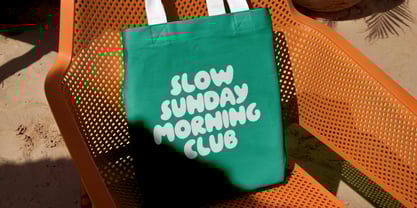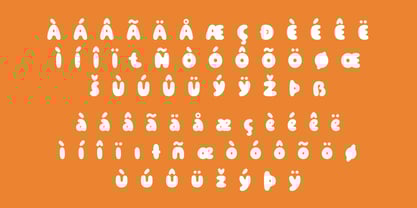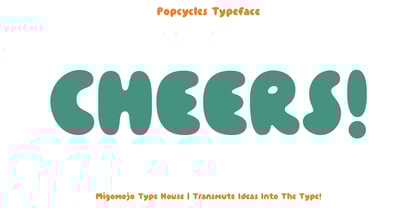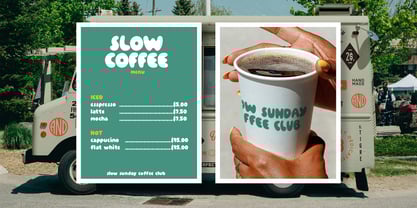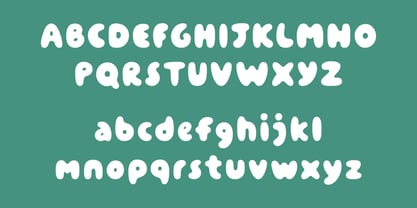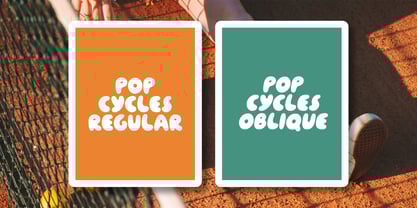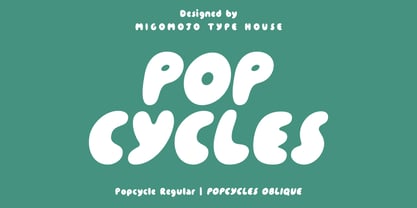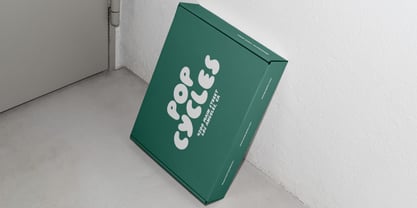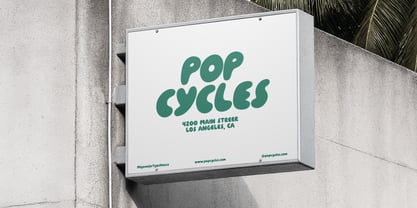
Popcycles
by Migomojo Type House
The Popcycles Font Family was designed by Komara Sani and published by Migomojo Type House. Popcycles contains 2 styles and family package options. More about this family
Popcycles is a chunky, groovy display font that brings instant 90s typography fun to your projects. With its youthful, playful, and organic letterforms, it adds a bold and nostalgic touch to your designs. Available in two styles—regular and oblique—Popcycles features over 400 glyphs with multilingual support, making it ideal for a variety of applications such as logo design, food branding, social media graphics, retro apparel, and brand collateral. Elevate your creative work with this vibrant font that captures the essence of retro design.
Designers: Komara Sani
Foundry: Migomojo Type House